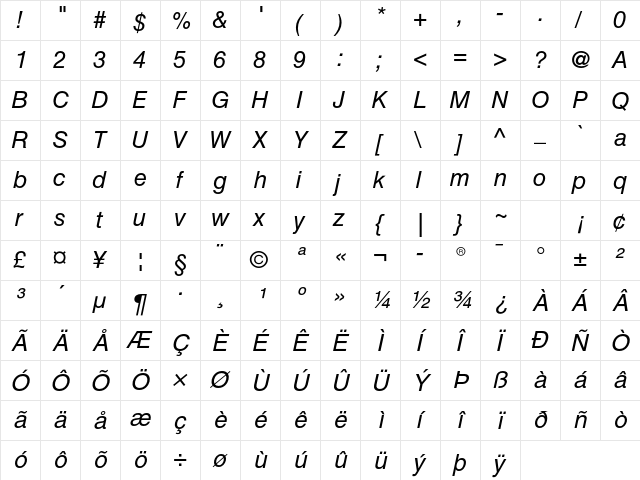
Helvetica LT Std Oblique
| Designer | Max Miedinger |
Design Context for Helvetica LT Std Typeface
Helvetica LT Std is a composed and adaptable typeface that performs quietly and consistently across a wide range of design contexts. The dynamic lean of this cut emphasises speed and emphasis in any layout. Its slender proportions lend an understated elegance to any composition.
Pro Tip: Use Helvetica LT Std for emphasis, pull quotes, and subheadings where its slanted energy can add rhythm to the layout.